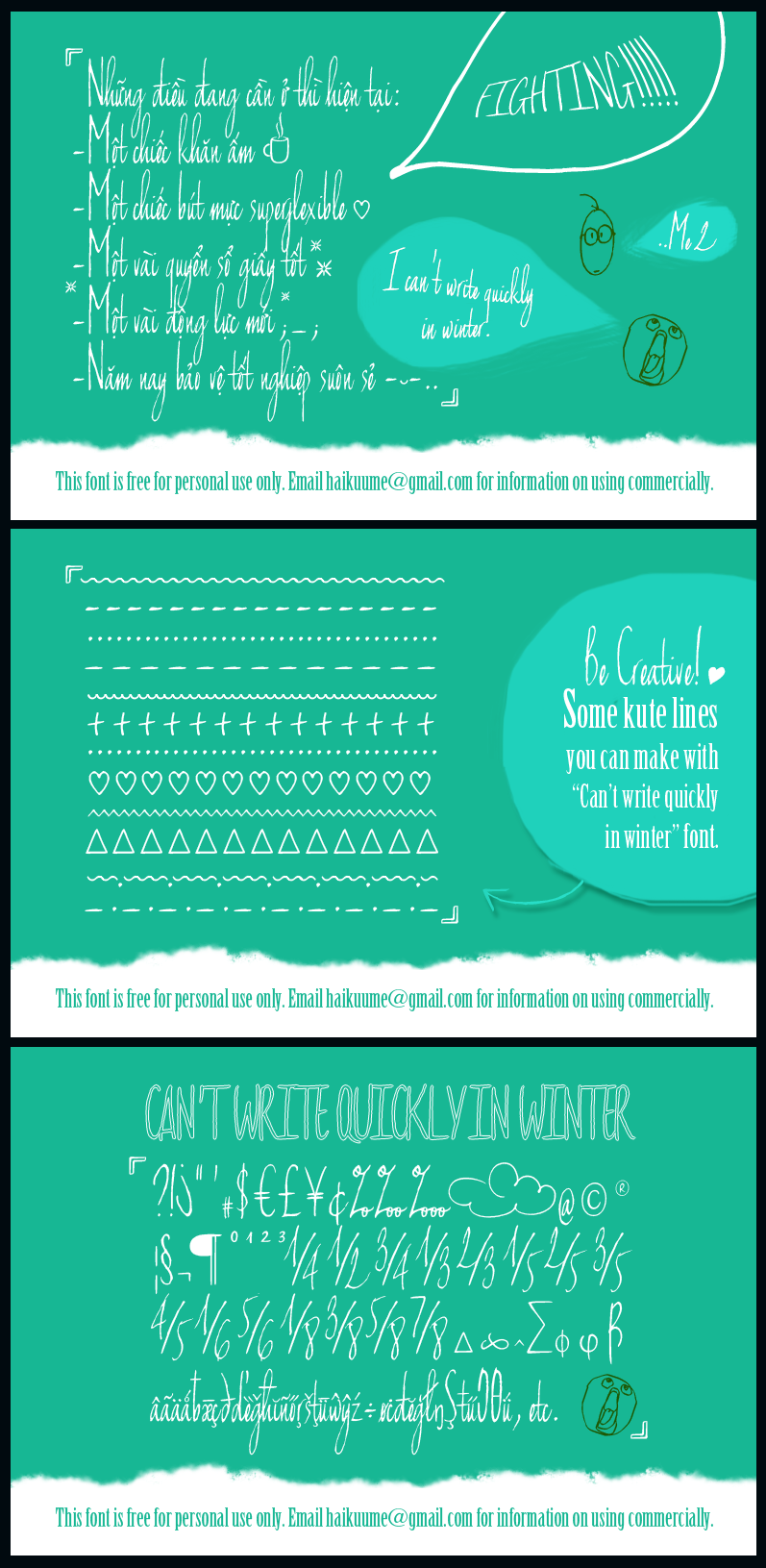
-"Can't write quickly in winter" FEATURES EXTENSIVE LANGUAGE SUPPORT >-Credit is required.
I just had a look at it again, and while I still agree with my previous comment, the 'y' is a bit obtrusive. Wouldn't it look more comfortable if you close the loop the same way you did with the 'g'?
Still fantastic work, and very cool fractions and decorative symbols.
Thank you so much, while this font was in progress, I had thought about "g" and "y" but I like "y" more than "g" so I didn't change "y". But I'm very appreciate your suggestion, thank you again
Absolutely beautiful design and fantastic features.